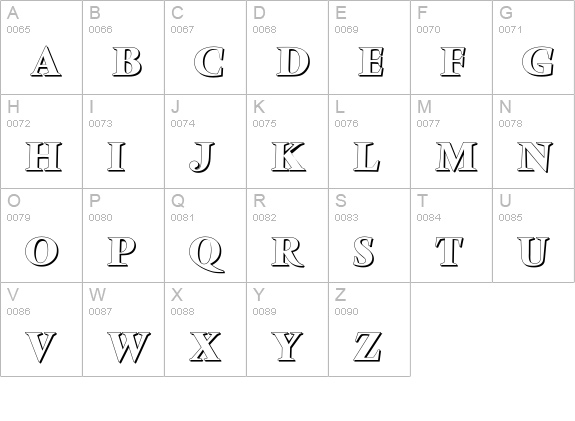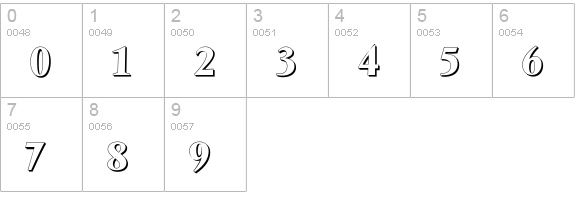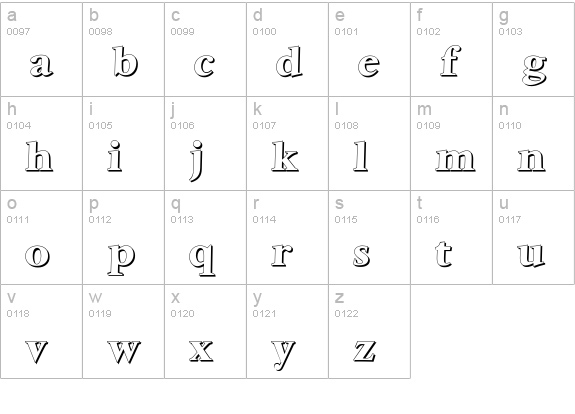
VenturaShadow-Bold Font Details
VenturaShadow-Bold is a strong, high-contrast variant in the VenturaShadow typeface family \xE2\x80\x94 well suited to headlines, attention-grabbing titles, and strong calls-to-action.
VenturaShadow-Bold is a bold and commanding font that exudes confidence and power. With its strong and sturdy letterforms, this font is perfect for making a bold statement in any design project. Whether you're creating attention-grabbing headlines, impactful logos, or eye-catching advertisements, VenturaShadow-Bold will surely leave a lasting impression. This font features sharp and prominent shadow effects that add depth and dimension to the text, giving it a three-dimensional appearance. The combination of thick strokes and dramatic shadows creates a visually striking contrast that demands attention. Each character is meticulously crafted with precision and attention to detail, ensuring clarity and legibility even at smaller sizes. One of the best aspects of VenturaShadow-Bold is that it is freely available to download at FontsMarket.com. This means that you can easily access and utilize this remarkable font without any limitations or costs. Whether you're a professional designer or a casual enthusiast, having access to high-quality fonts like VenturaShadow-Bold can greatly enhance your creative projects. So, if you're searching for a font that exudes power and sophistication while making a bold statement, look no further than VenturaShadow-Bold. Download this font for free at FontsMarket.com and let your designs shine with confidence and impact.